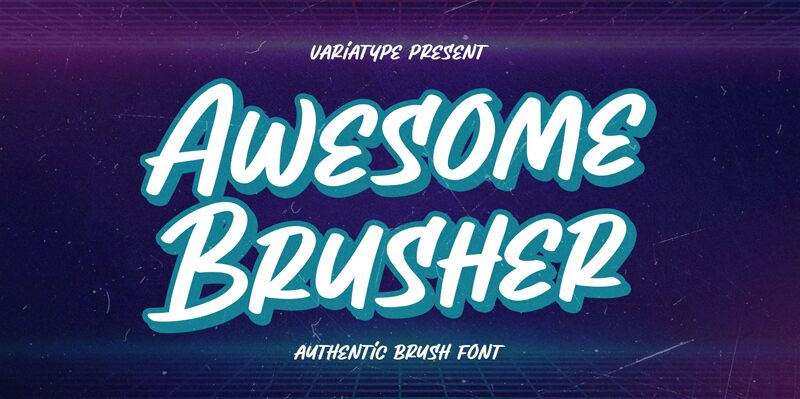
Awesome Brusher, a captivating brush-style font crafted by the talented team at Variatype, commands attention with its dynamic, expressive strokes.
This font exudes a sense of artistry and movement, making it a standout choice for projects that demand a bold, attention-grabbing aesthetic. The fluid, brush-like lines and the amalgamation of thick and thin strokes create a captivating visual rhythm, evoking a sense of spontaneity and energy. Awesome Brusher's versatility shines through, seamlessly transitioning from headlines and titles to logos, packaging designs, and more, infusing any project with a striking, handcrafted flair.
Whether you're designing a trendy brand identity, a captivating poster, or an impactful editorial layout, Awesome Brusher is a font that will elevate your creative vision, leaving a lasting impression on your audience.
Awesome Brusher